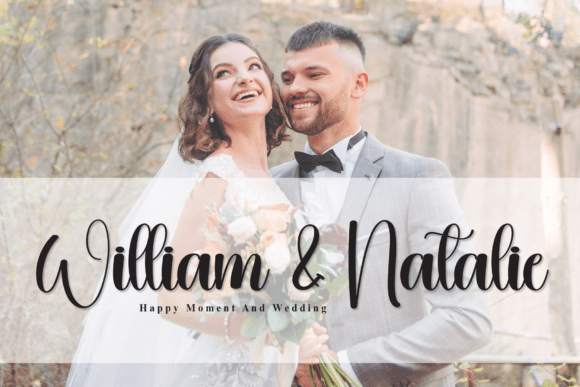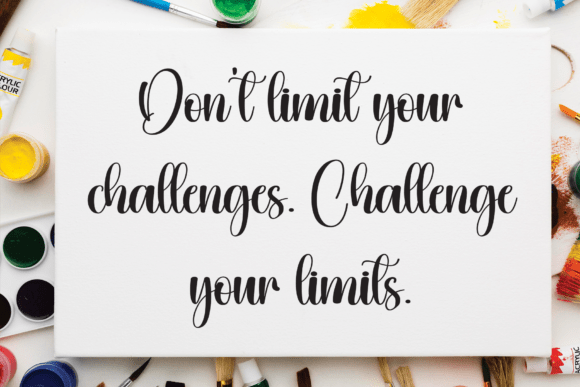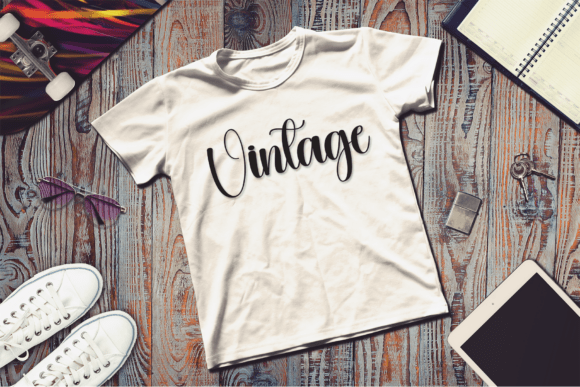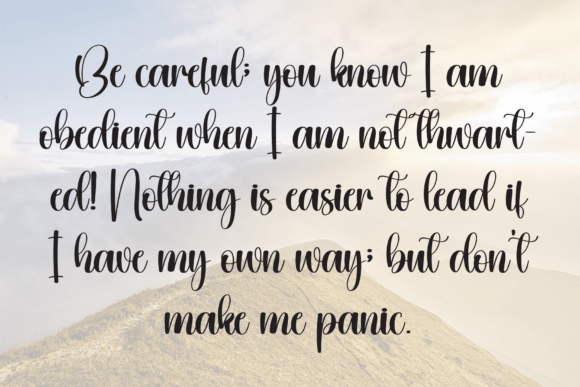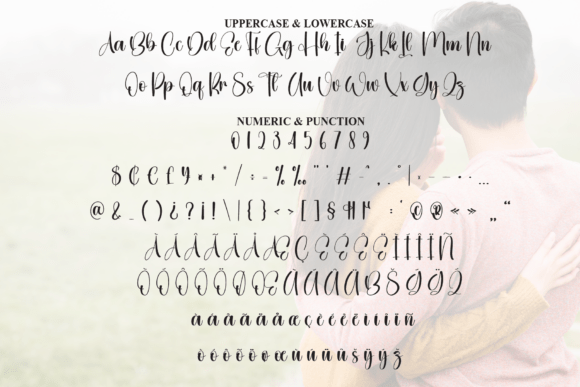
Affection Font: Elevate Your Design with Elegance and Sophistication
In the world of typography, few fonts manage to convey the essence of elegance and sophistication as effectively as Affection Font. This modern script font is a masterpiece of design, boasting a fluid and graceful personality that is sure to elevate any project to new heights. With its unique blend of thick downstrokes, fine sweeping connectors, and tall ascenders, Affection Font is the perfect choice for designers and crafters looking to add a touch of luxury to their work.
The Characteristics of Affection Font
Affection Font is defined by its rhythmic visual flow, which is achieved through the careful balance of thick downstrokes and fine, sweeping connectors. This harmonious combination creates a sense of movement and fluidity, giving the font a dynamic and engaging feel. The tall ascenders and long terminal swashes add a touch of sophistication and elegance, making Affection Font perfect for high-end designs.
Perfect for Romantic and Elegant Designs
Affection Font is an ideal resource for designers looking to create romantic and elegant designs. Whether you’re working on a lifestyle brand identity, a boutique brand, or an editorial project, this font is sure to impress. The font’s sophisticated and fluid script style makes it perfect for creating elegant editorial headers, professional signature-style logos, and beautiful brand identities.
Key Features of Affection Font
- Fluid Script Style: Affection Font boasts a fluid and graceful script style that is perfect for creating elegant and sophisticated designs.
- Thick Downstrokes and Fine Connectors: The font’s thick downstrokes and fine sweeping connectors create a sense of movement and fluidity.
- Tall Ascenders and Long Terminal Swashes: The font’s tall ascenders and long terminal swashes add a touch of sophistication and elegance.
- High-End and Personal Feel: Affection Font’s unique design creates a sense of customized artistry that feels high-end and personal.
Use Cases for Affection Font
Affection Font is a versatile font that can be used in a variety of design projects, including:
- Romantic Lifestyle Identities: Create beautiful and elegant brand identities for lifestyle brands that evoke a sense of romance and sophistication.
- Boutique Brand Identities: Use Affection Font to create unique and elegant brand identities for boutique brands that want to stand out from the crowd.
- Elegant Editorial Headers: Add a touch of sophistication to your editorial designs with Affection Font’s elegant and fluid script style.
- Professional Signature-Style Logos: Create professional and elegant logos that make a lasting impression with Affection Font.
Why Choose Affection Font?
With so many fonts available, why choose Affection Font? Here are just a few reasons why Affection Font stands out from the crowd:
- Unique Design: Affection Font’s unique design makes it stand out from other script fonts.
- Elegant and Sophisticated: The font’s elegant and sophisticated style makes it perfect for high-end designs.
- Versatile: Affection Font can be used in a variety of design projects, from romantic lifestyle identities to professional signature-style logos.
In conclusion, Affection Font is a sophisticated and fluid script font that is perfect for designers and crafters looking to add a touch of elegance and sophistication to their work. With its unique design, elegant style, and versatility, Affection Font is an ideal resource for a wide range of design projects. Whether you’re working on a romantic lifestyle identity, a boutique brand, or an editorial project, Affection Font is sure to impress.